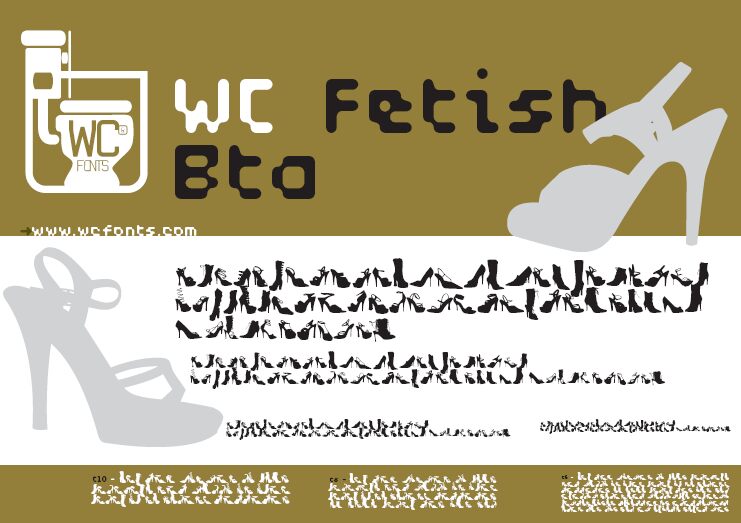
WC Fetishist Bta by WC Fonts is a free footwear symbol font devoted to sharply silhouetted women's shoes. The collection ranges from strappy sandals and pointed pumps to ankle boots and tall platforms, with crisp contours and small interior cutouts distinguishing straps, heels, and openings.
It turns fashion labels and event posters into shoe displays. For boutique packaging and merchandise, the varied heel profiles can become repeating patterns, border ornaments, or compact emblems tied directly to a product identity centered on footwear.